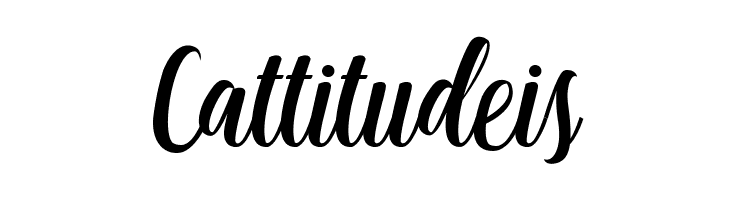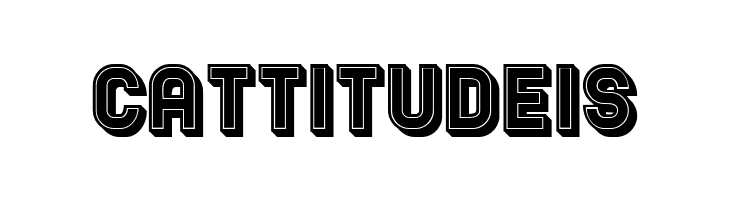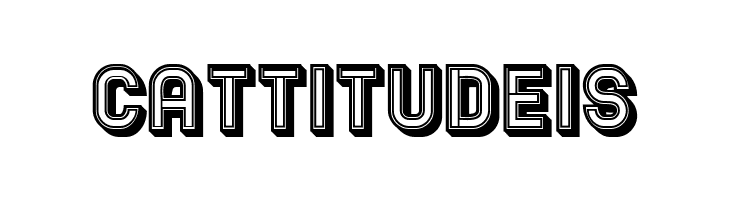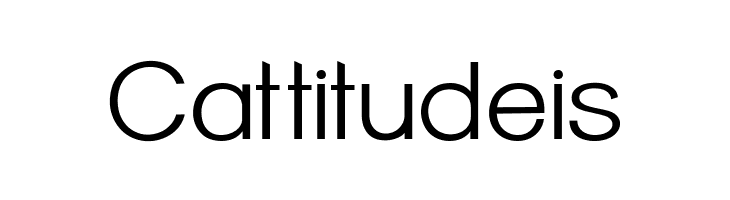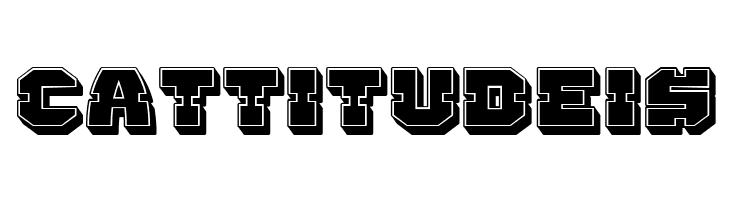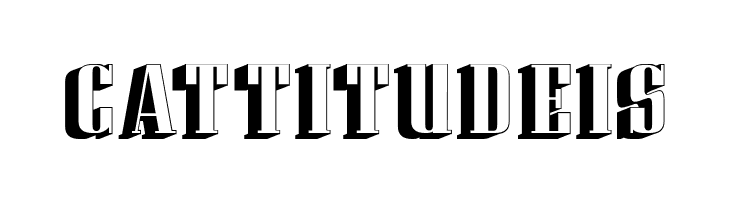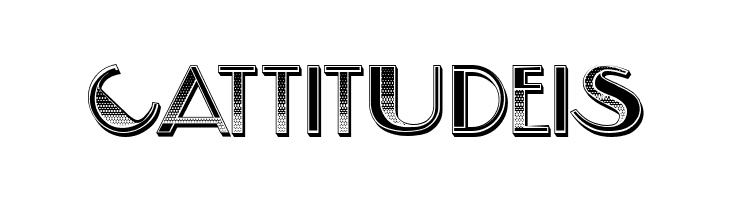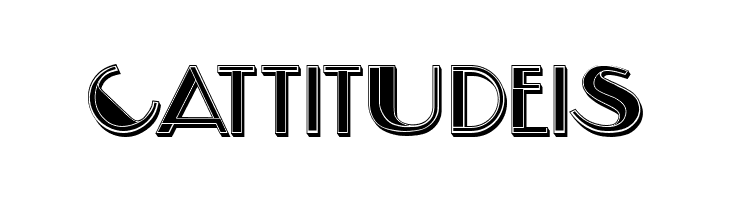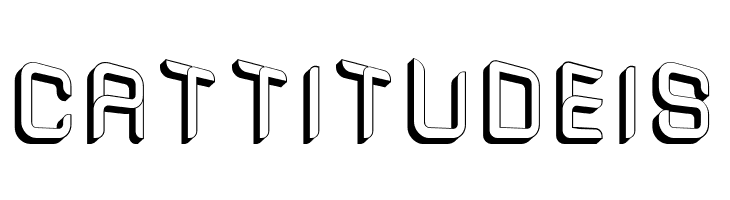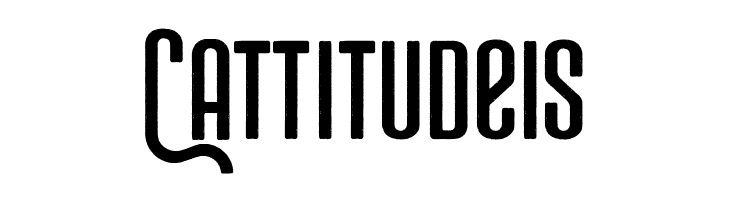
A bold, 3D font with a modern, playful aesthetic and shadow effects.
A modern, elegant script font with a flowing, handwritten style.
A bold, energetic script font with fluid, interconnected strokes.
A bold, energetic script font with a hand-drawn, dynamic style.
A bold, flowing script font with elegant curves and decorative swashes.
A bold, vintage-style font with a three-dimensional shadow effect.
A bold, dynamic script font with a brush lettering style.
A fluid, cursive script font with elegant, sweeping strokes.
An elegant and flowing script font with interconnected letters and a classic style.
A playful, casual handwritten font with flowing, irregular letterforms.
An elegant script font with flowing, ornate swashes and high contrast strokes.
Elegant handwritten script font.
Playful, bold handwritten script font.
A decorative and modern font with bold, artistic strokes and intricate design.
A modern, rounded sans-serif font with uniform strokes and high legibility.
A playful, handwritten font with bold, rounded strokes and a casual style.
A bold, brush-style font with dynamic and expressive strokes.
A modern, geometric sans-serif font with rounded edges and consistent stroke width.
A dynamic, expressive handwritten font with flowing, cursive letterforms.
A playful and artistic handwritten font with flowing, interconnected letterforms.
A playful, handwritten font with a casual and dynamic style.
A bold, modern font with geometric shapes and thick outlines.
A bold, decorative font with geometric shapes and intricate patterns.
A bold, geometric font with a mechanical, futuristic style.
A bold, geometric font with a futuristic, industrial style.
A bold, geometric font with a distinct outline and high contrast, ideal for impactful designs.
A bold, three-dimensional font with a vintage, decorative style.